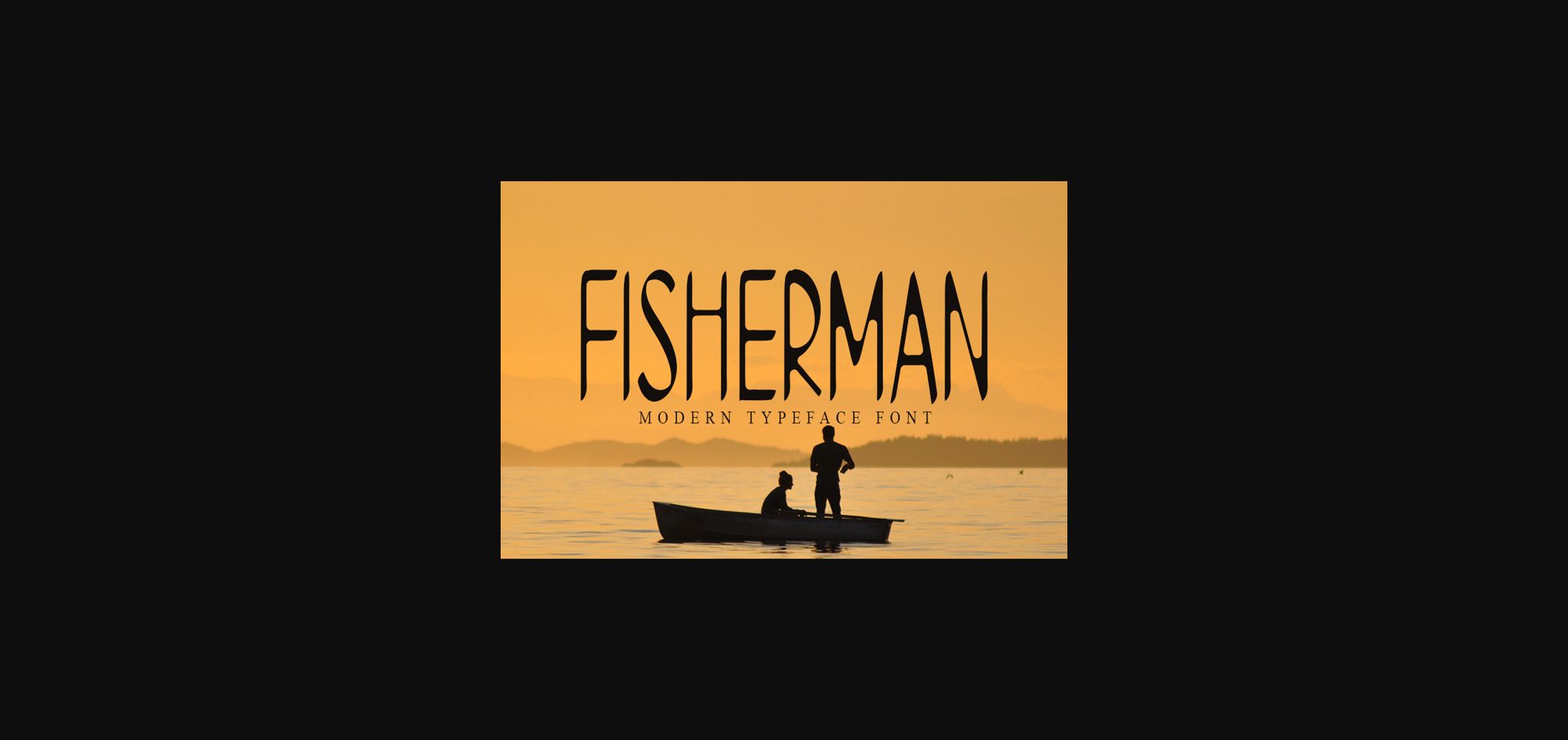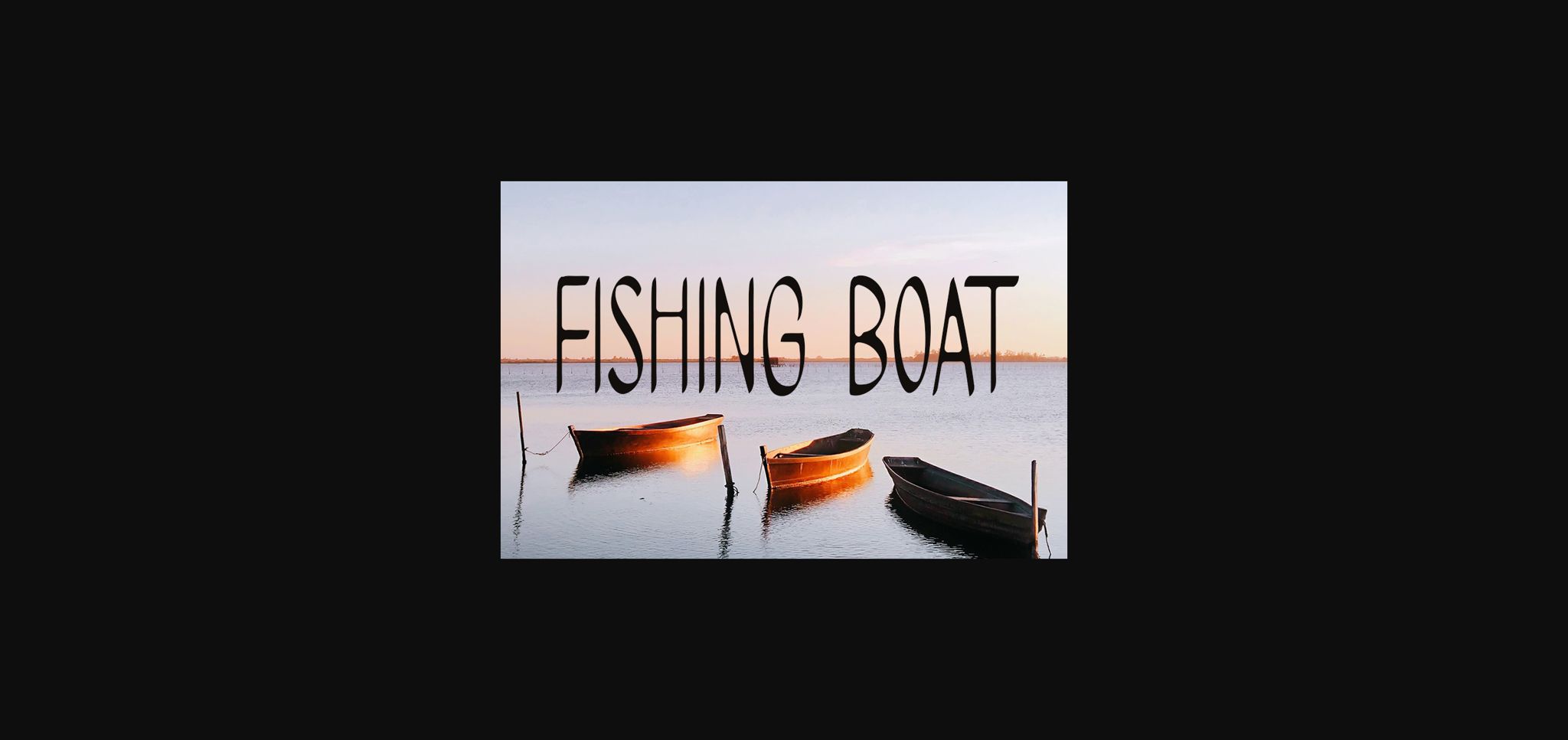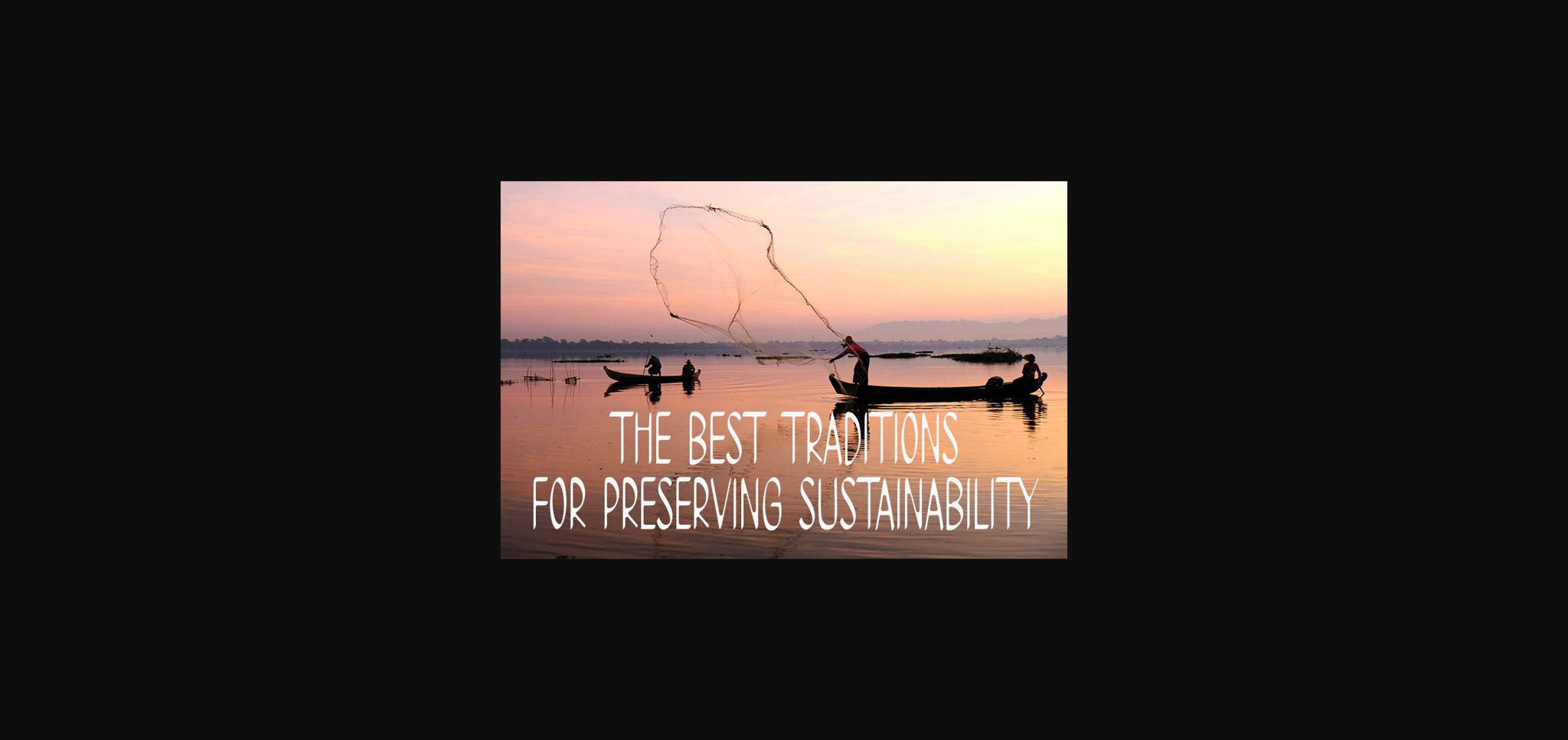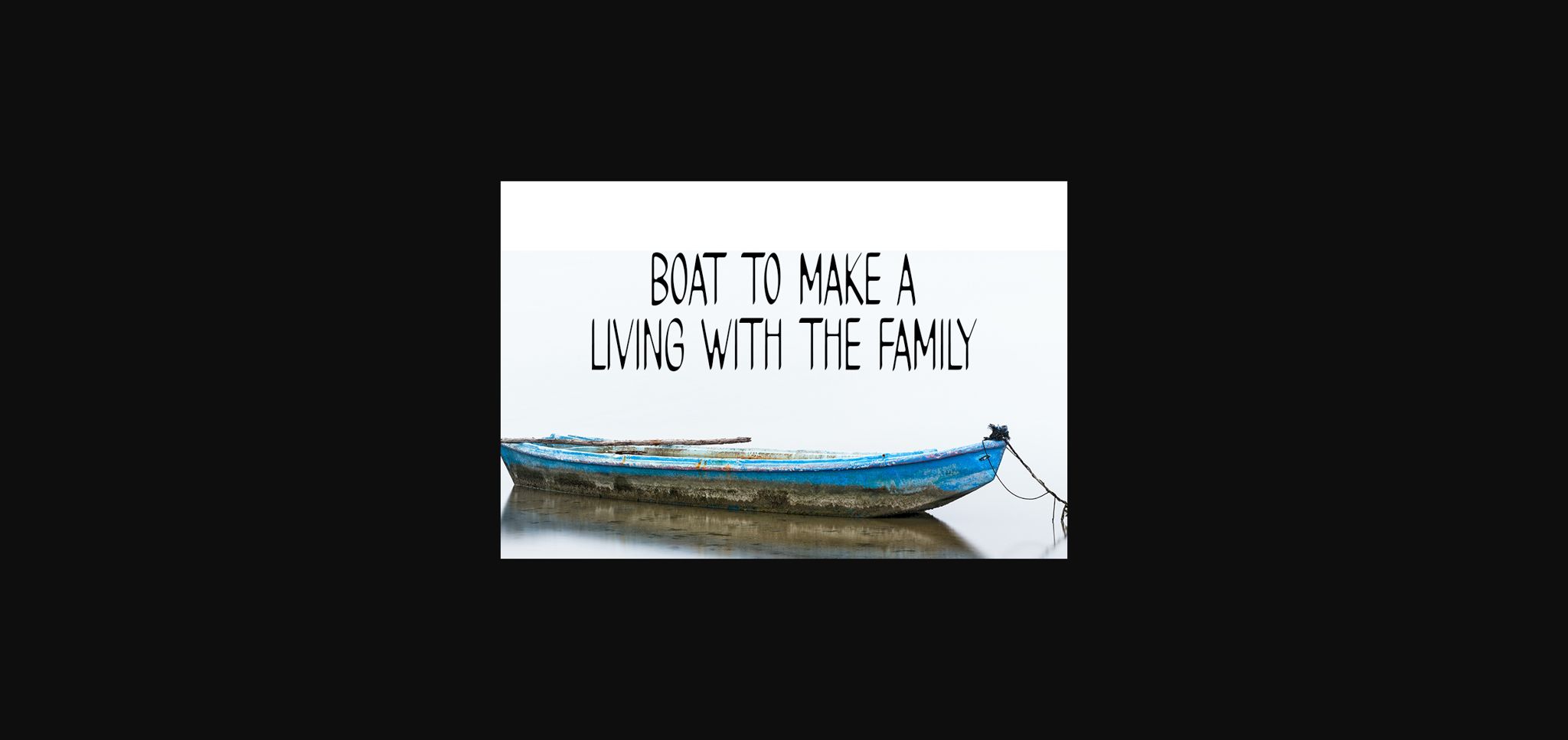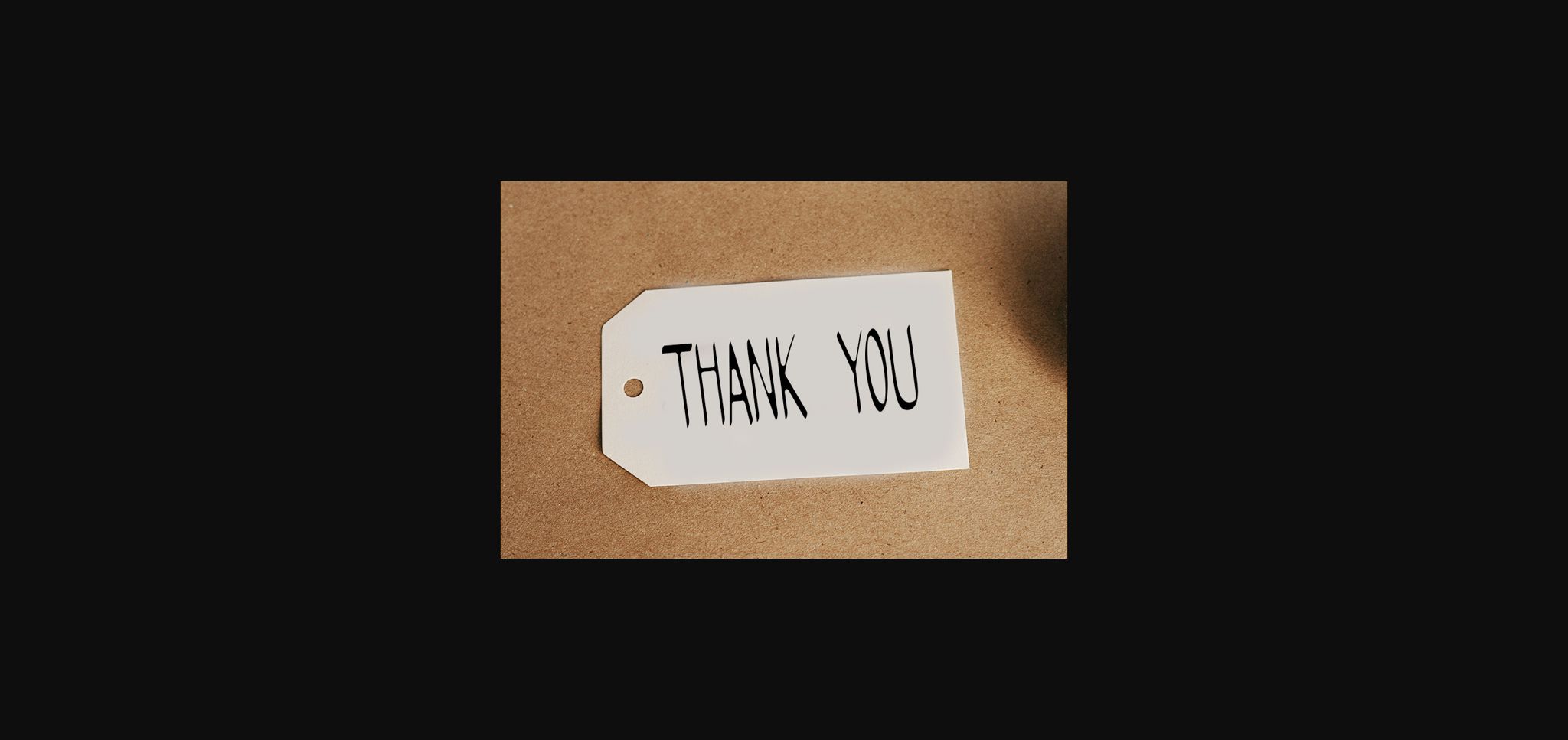
Fisherman is a beautiful tall and versatile sans serif font. Suitable to a wide variety of designs due to its neat and simple style, Fisherman has the potential to become your favorite go-to font, no matter the occasion!